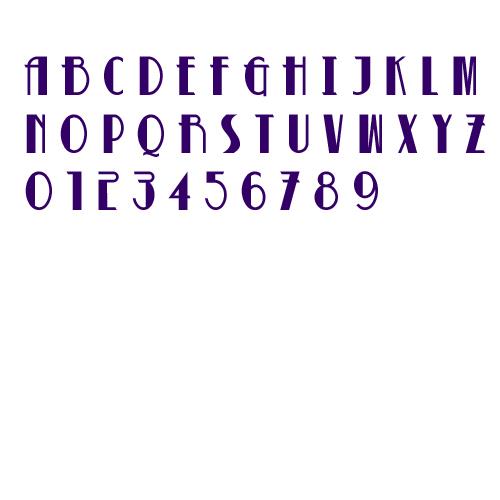
Fireside Threads is happy to present Art Deco machine embroidery font which has Bold, geometric design of this Art Deco machine embroidery font adds flair to home decor items like throw pillows. Available in PES, DST, and other formats for versatile crafting projects. included. If you would like to view more embroidery fonts and alphabets please search our embroidery fonts page.